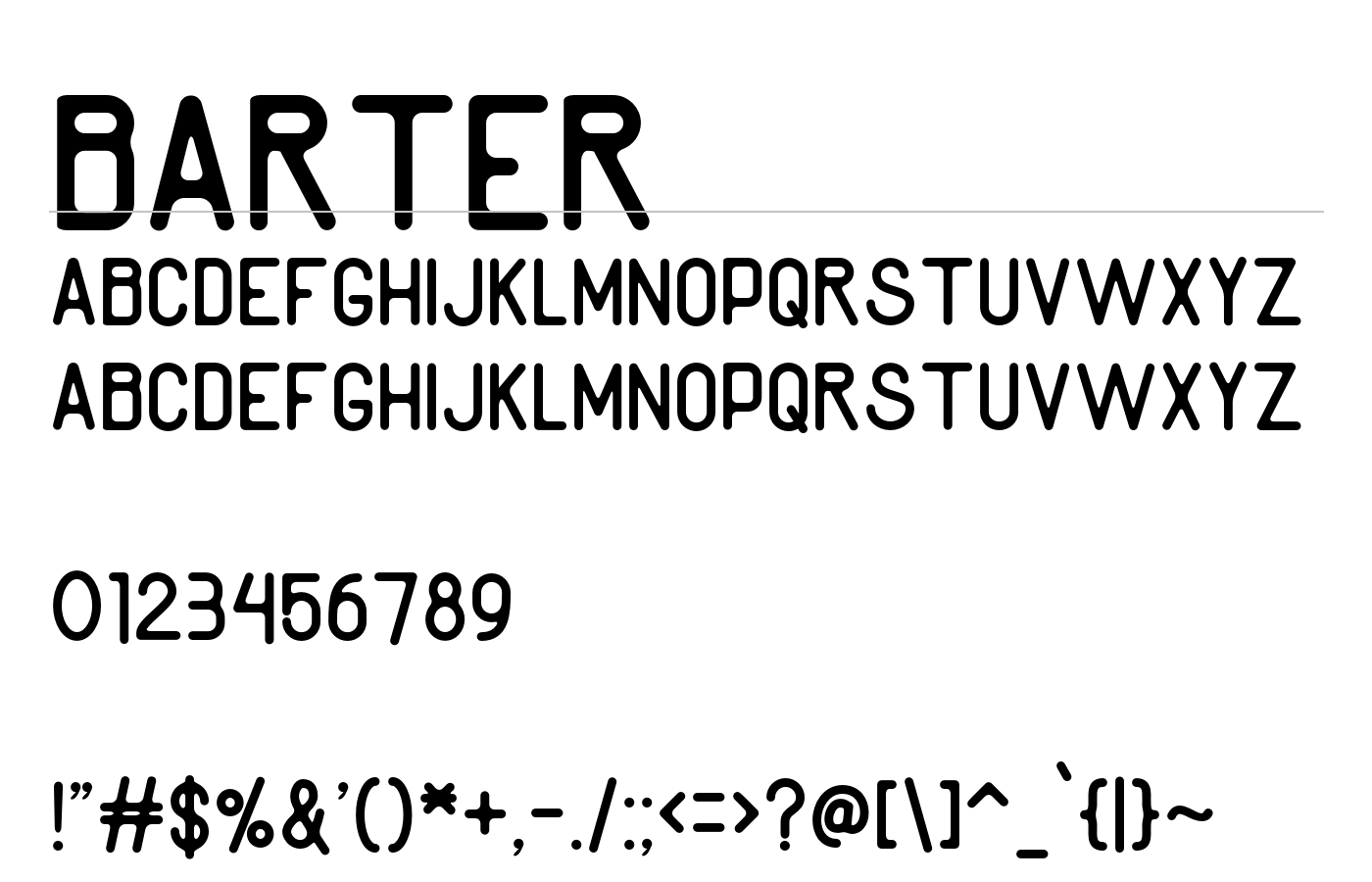
Barter is a rounded sans serif font with a friendly and modern feel, characterized by its consistent stroke weight and slightly condensed letterforms. Its clean, geometric shapes and open counters make it highly legible, suitable for contemporary branding, headlines, and UI design where a warm yet professional tone is desired. This font works well for projects that want to convey approachability without sacrificing clarity or style.
Barter Font